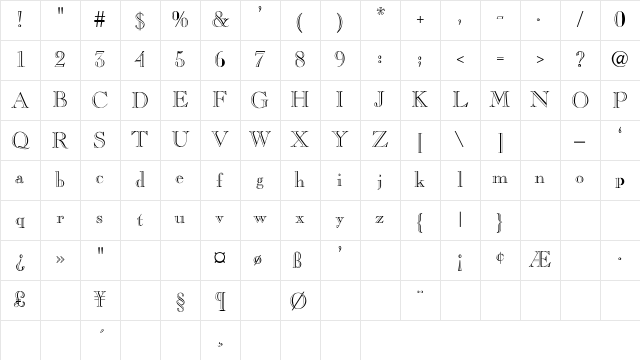
CASLONOPENFACE-Thin Regular Free Font
CASLONOPENFACE-Thin Regular
Design Context for CASLONOPENFACE-Thin
CASLONOPENFACE-Thin is a composed and adaptable typeface that performs quietly and consistently across a wide range of design contexts. Its slender proportions lend an understated elegance to any composition.